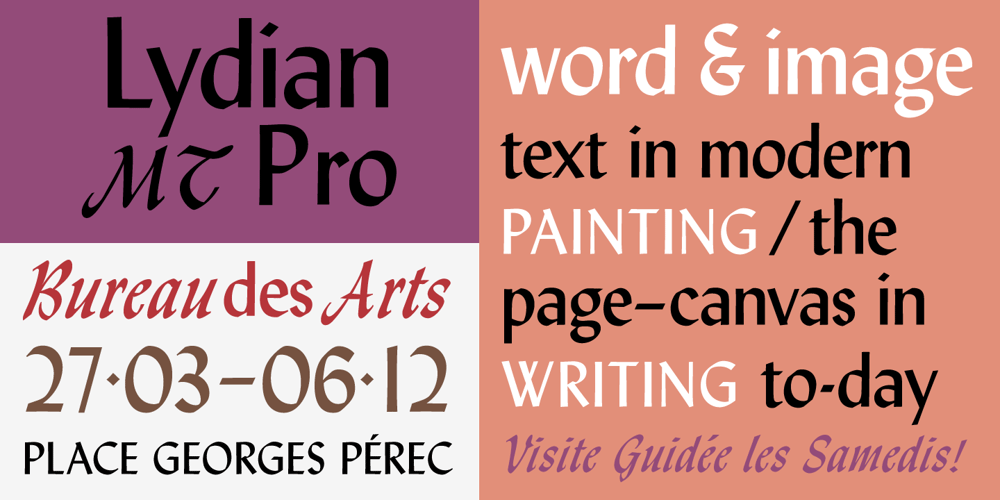
Monotype Lydian
Monotype Lydian font
Monotype Lydian Font Family was designed by Warren Chappell and published by Monotype. Monotype Lydian contains 2 styles and family package options. Lydian is an unusual sans serif face with strongly calligraphic letter shapes, originally cut by American Type Founders. The eye-catching nature of the Lydian font family has made it popular for use in magazines and advertising as well as in newspapers for headlines and introductions. The cursive has an even more marked pen-drawn structure.